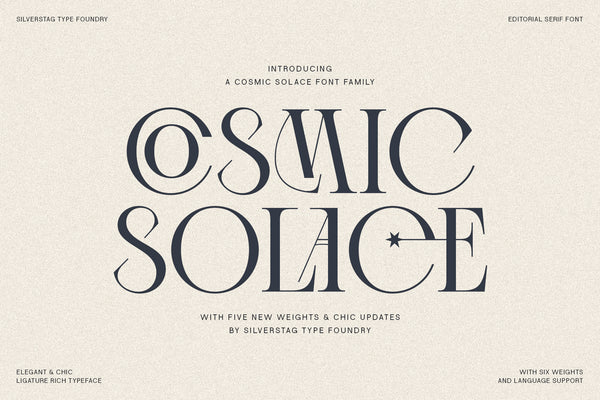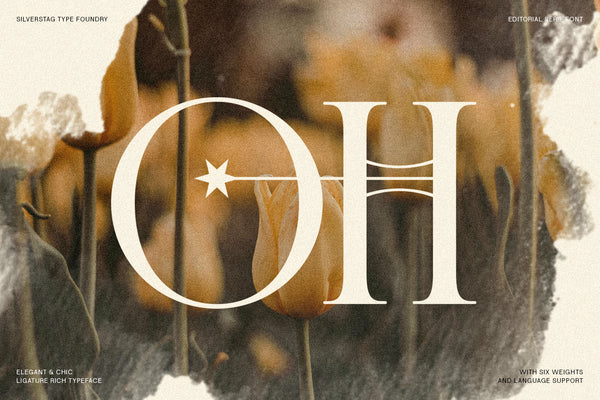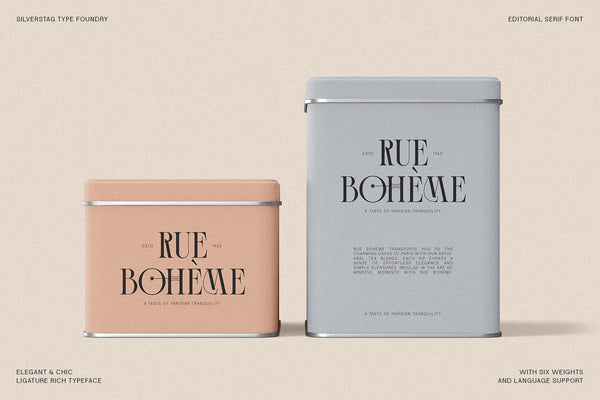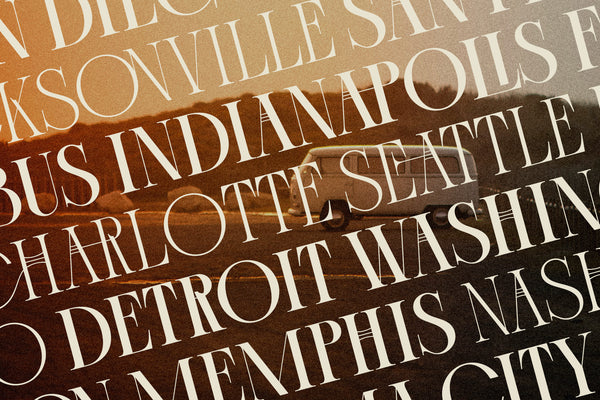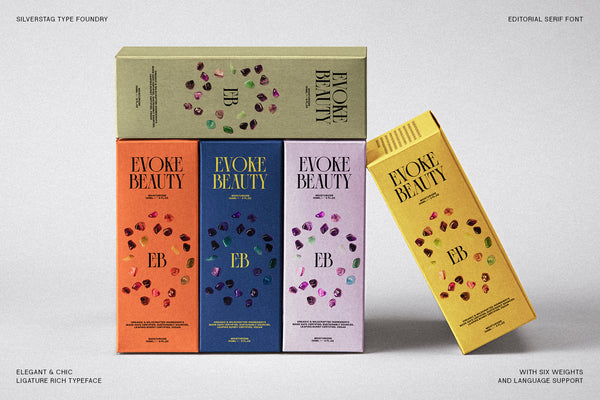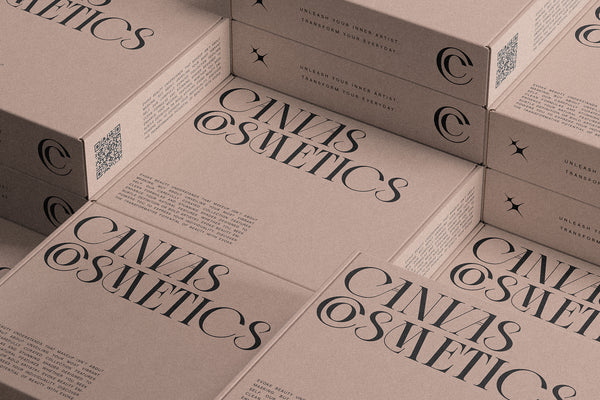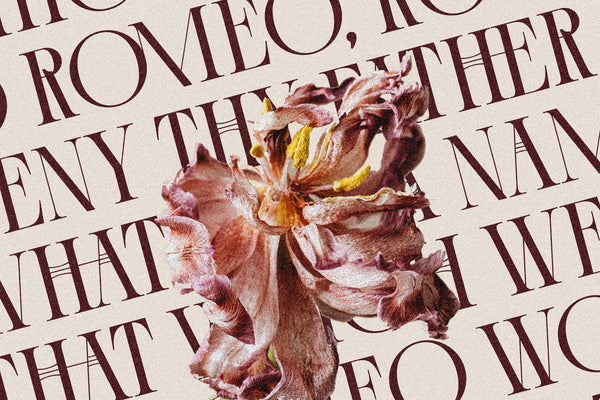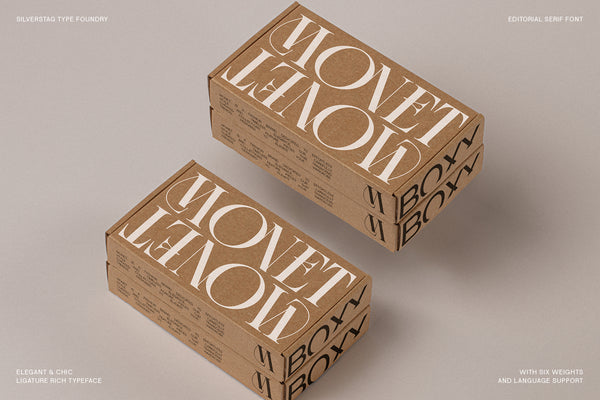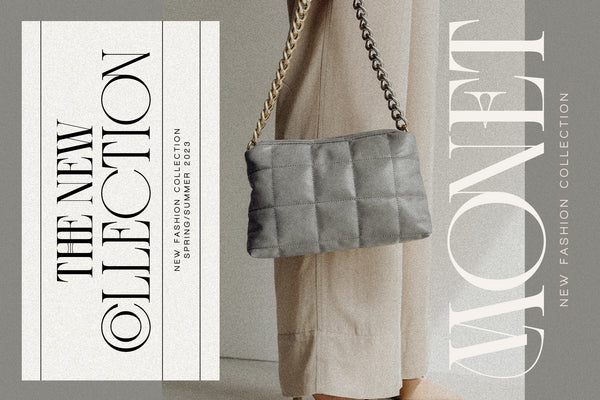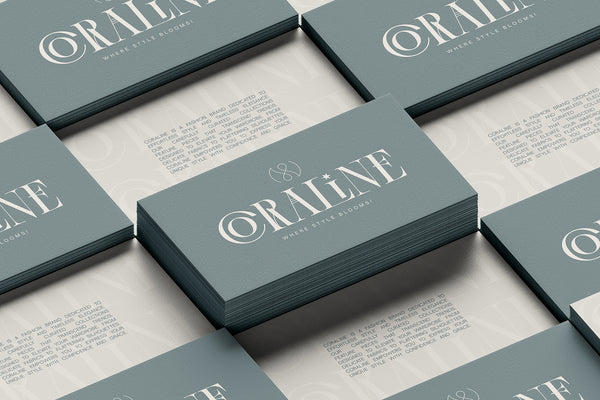
Cosmic Solace returns as a fully expanded serif typeface, now featuring six refined weights—from Regular to Black—each crafted for elegance, clarity, and high-end expression. Originally celebrated for its chic ligatures and soft curves, this updated version brings even more versatility and control to your design work.
With 130+ stylistic ligatures, Cosmic Solace offers effortless sophistication and natural flow between letters—perfect for branding, editorial layouts, invitations, and digital design. Whether you’re creating a luxury logo, a magazine cover, or wedding stationery, this typeface adds a graceful, contemporary touch.
Now optimized for enhanced legibility and stroke contrast, Cosmic Solace is both functional and stylish at every size. Supporting over 90 languages, it’s ready to elevate global projects across industries.